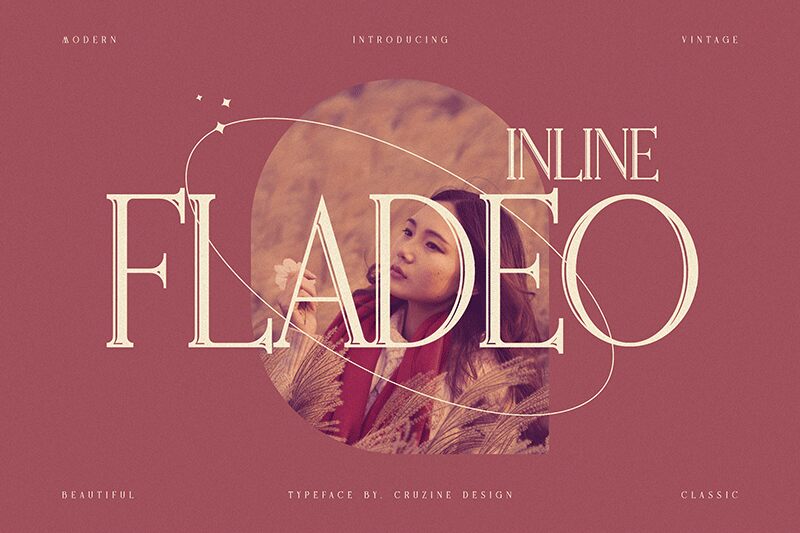
Introducing Fladeo Inline, a captivating display font from the talented designer cruzine. With its elegant retro style and semi-light weight, this font is perfect for adding a touch of sophistication to any project. Its semi-condensed width makes it an ideal choice for designs that need to convey a sense of modernity while still maintaining a timeless feel. From vintage-inspired logos and branding to eye-catching headlines and posters, Fladeo Inline is sure to make your text pop with its unique charm. Give your design projects the edge they deserve with this stunning font!